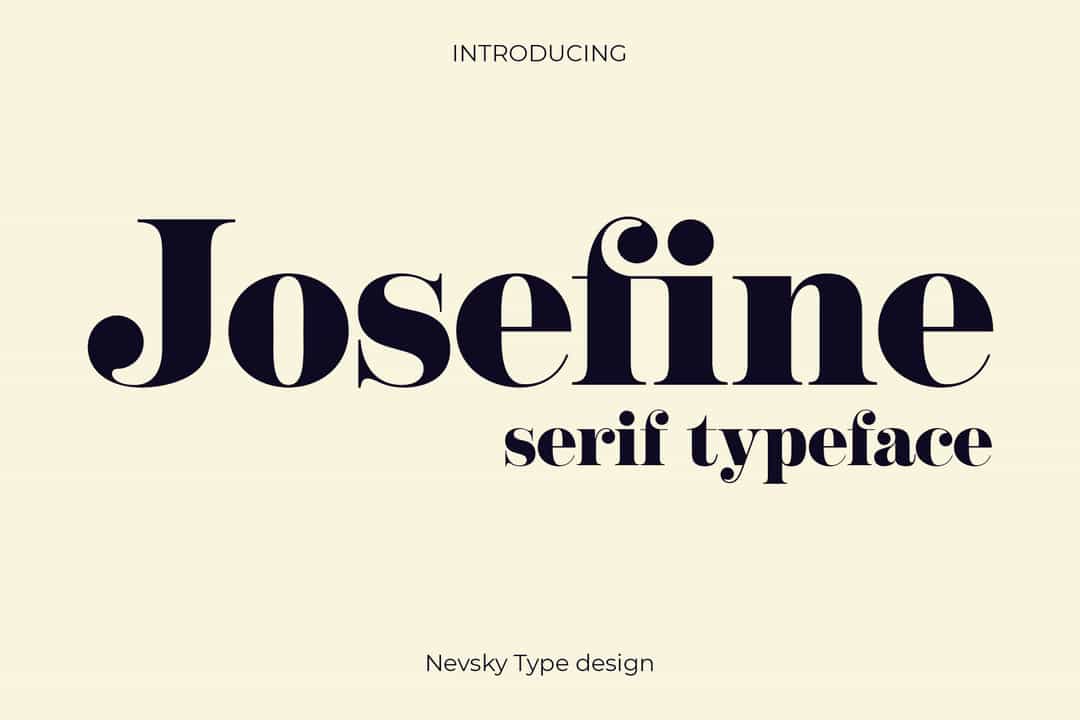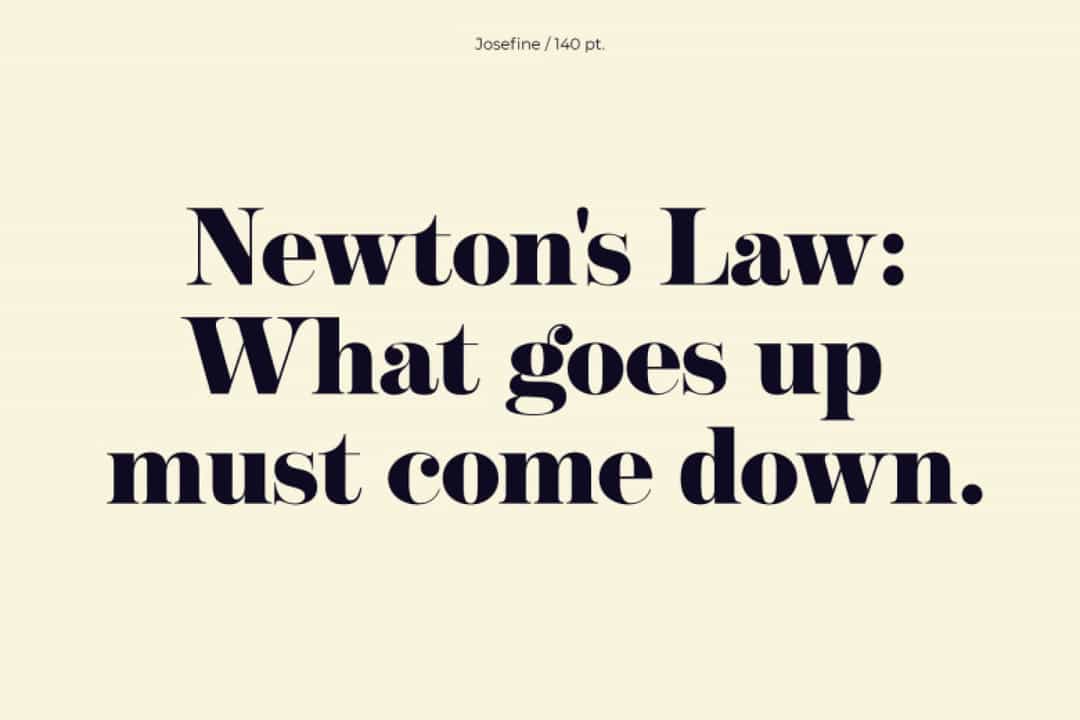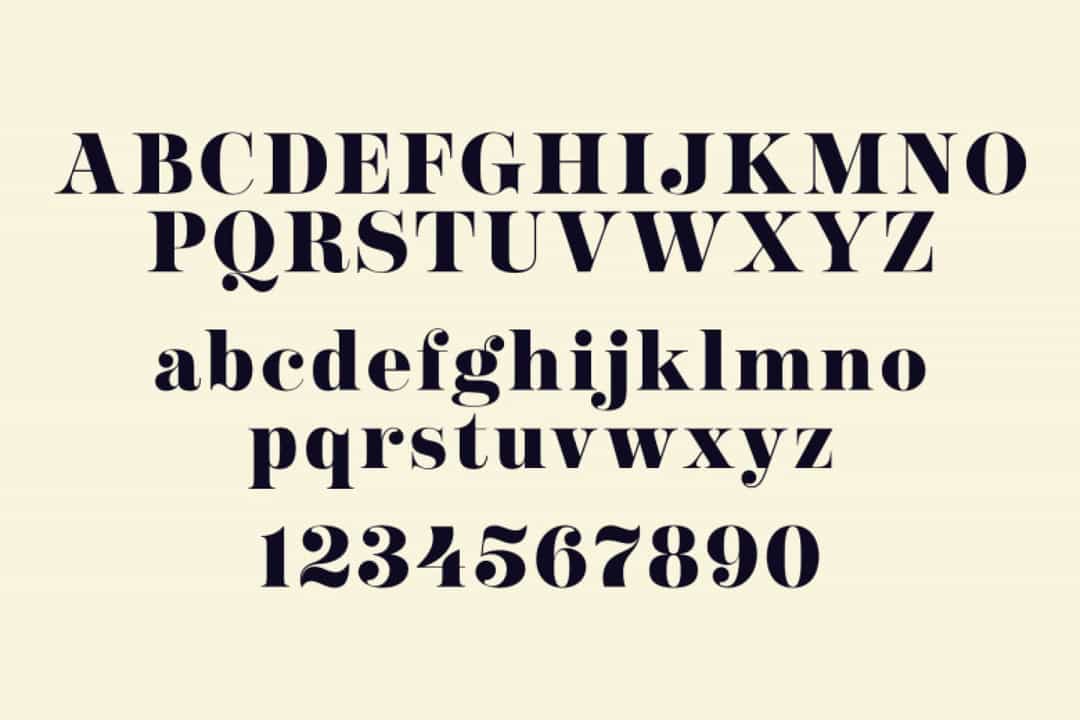
“NT Josefine” is an elegant serif typeface perfect for numerous projects such as invitations, postcards, posters advertising book blogs websites branding logos magazines fashion photography etc.